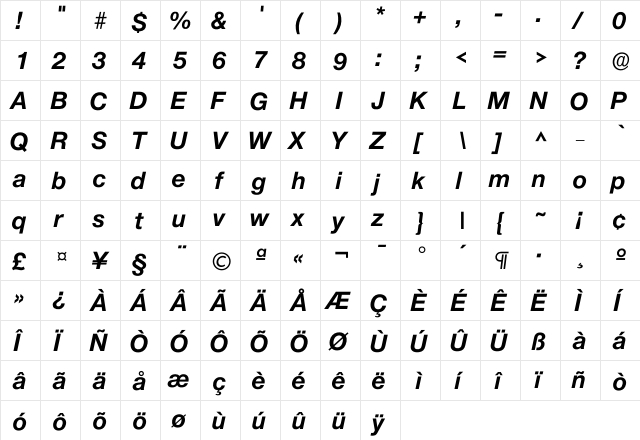
Iolnova Bold Font Preview
Iolnova Bold
Design Context for Iolnova Typeface
Iolnova offers clean, dependable letterforms without strong stylistic allegiance, making it a practical choice for designers who need flexibility. The heavy weight commands attention and anchors typographic hierarchies.